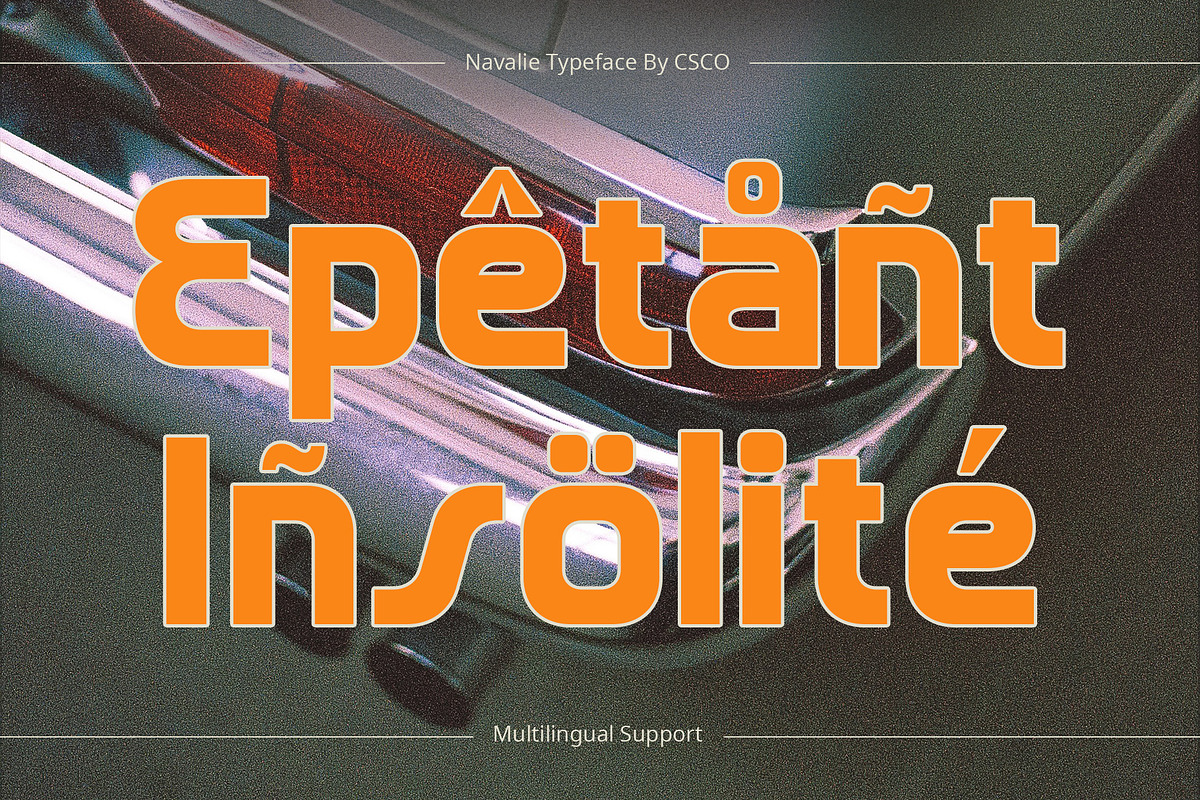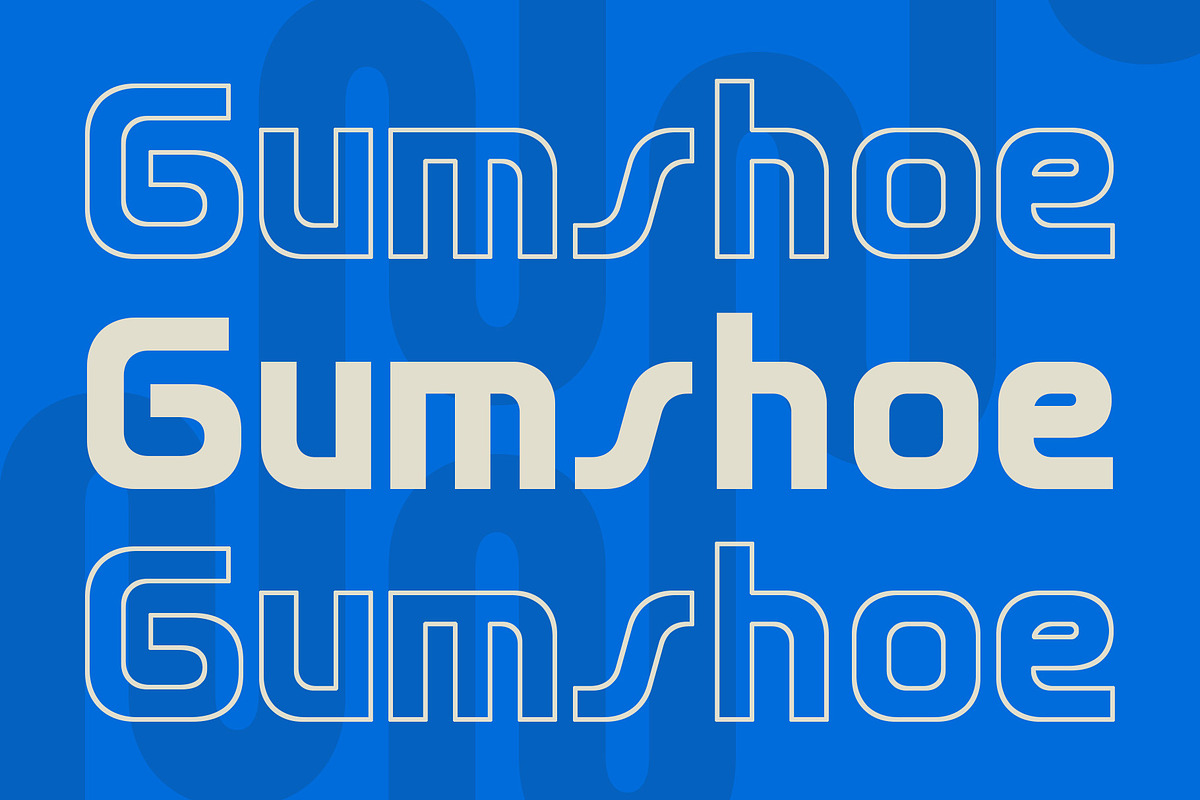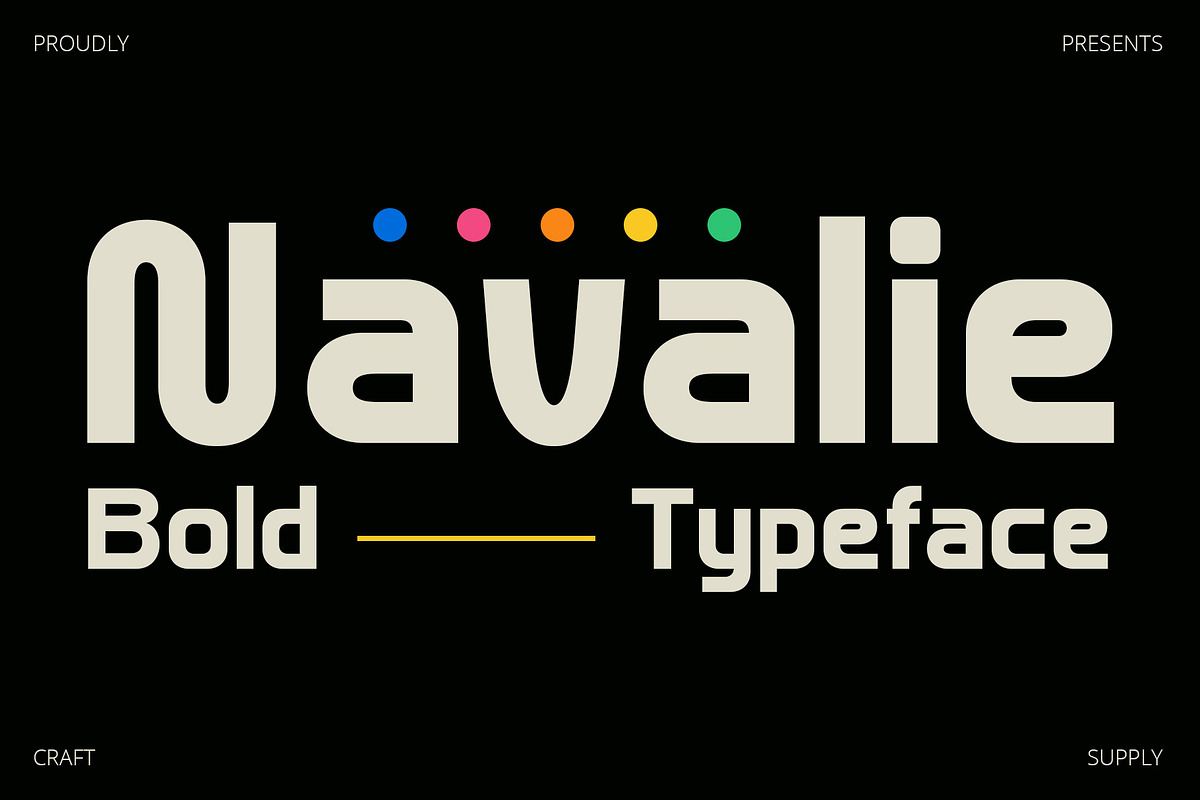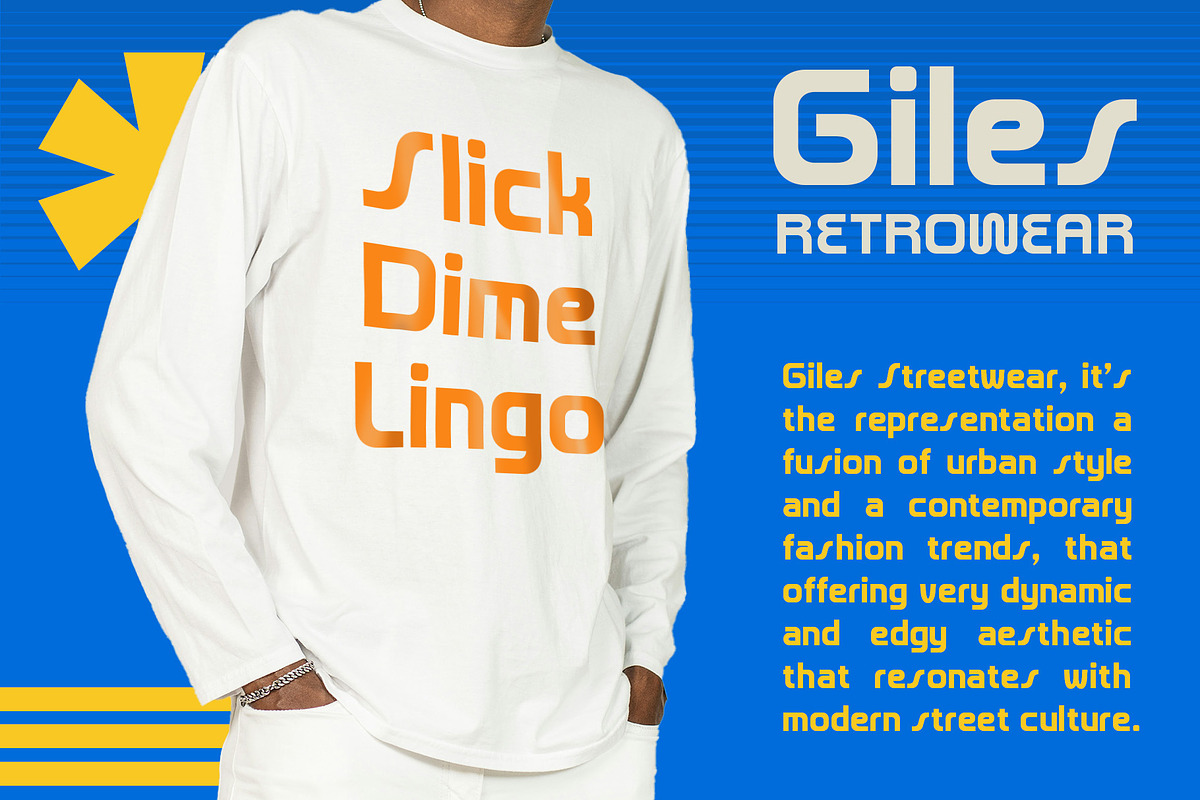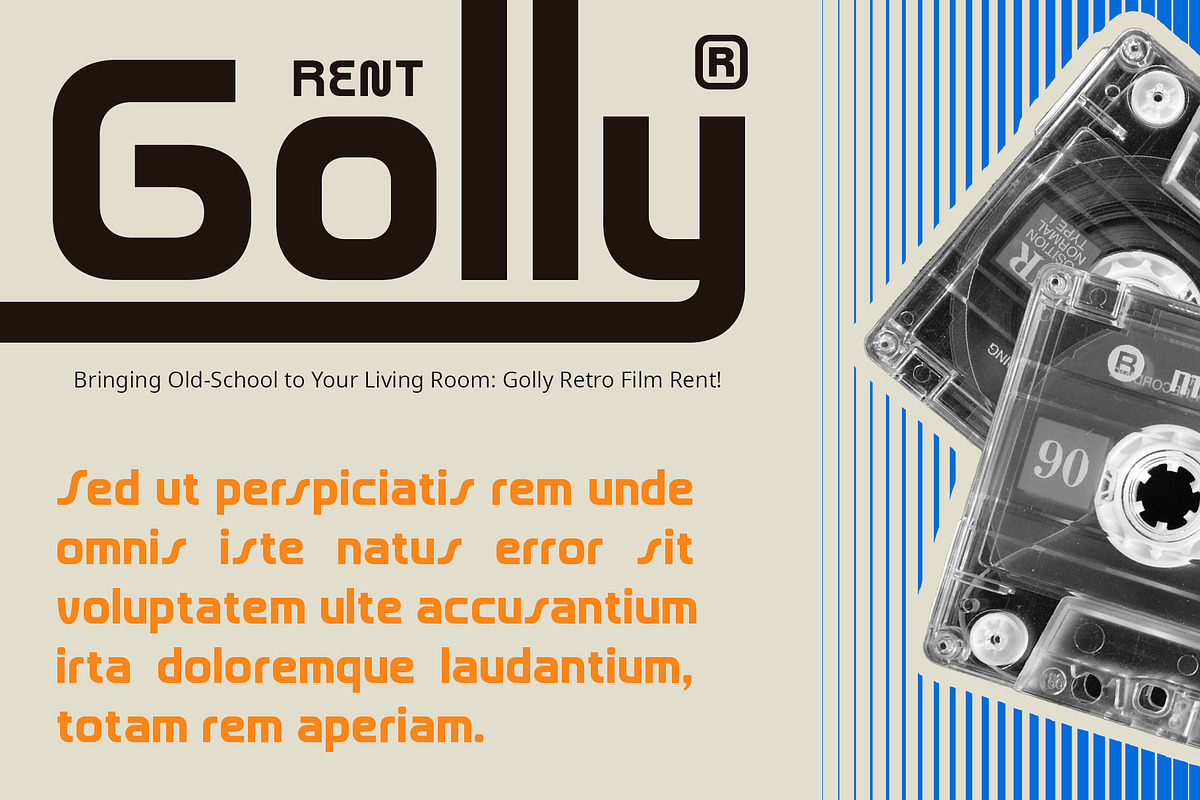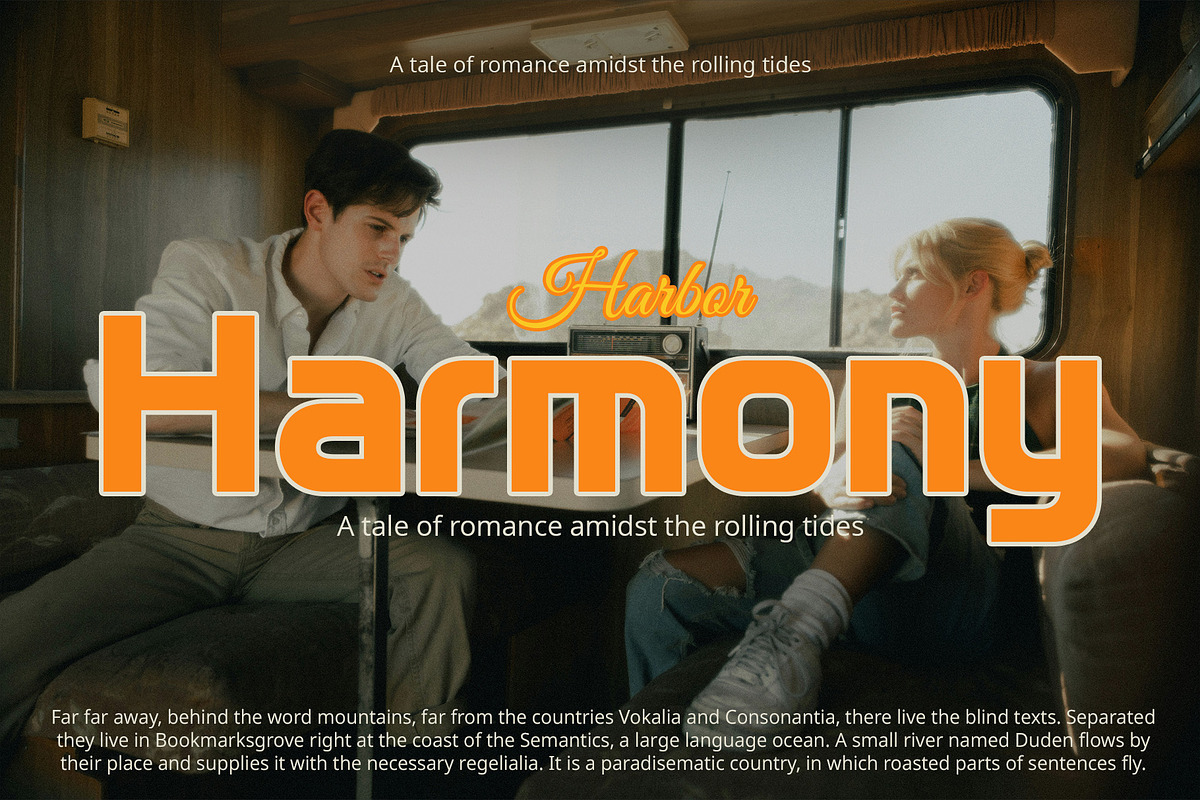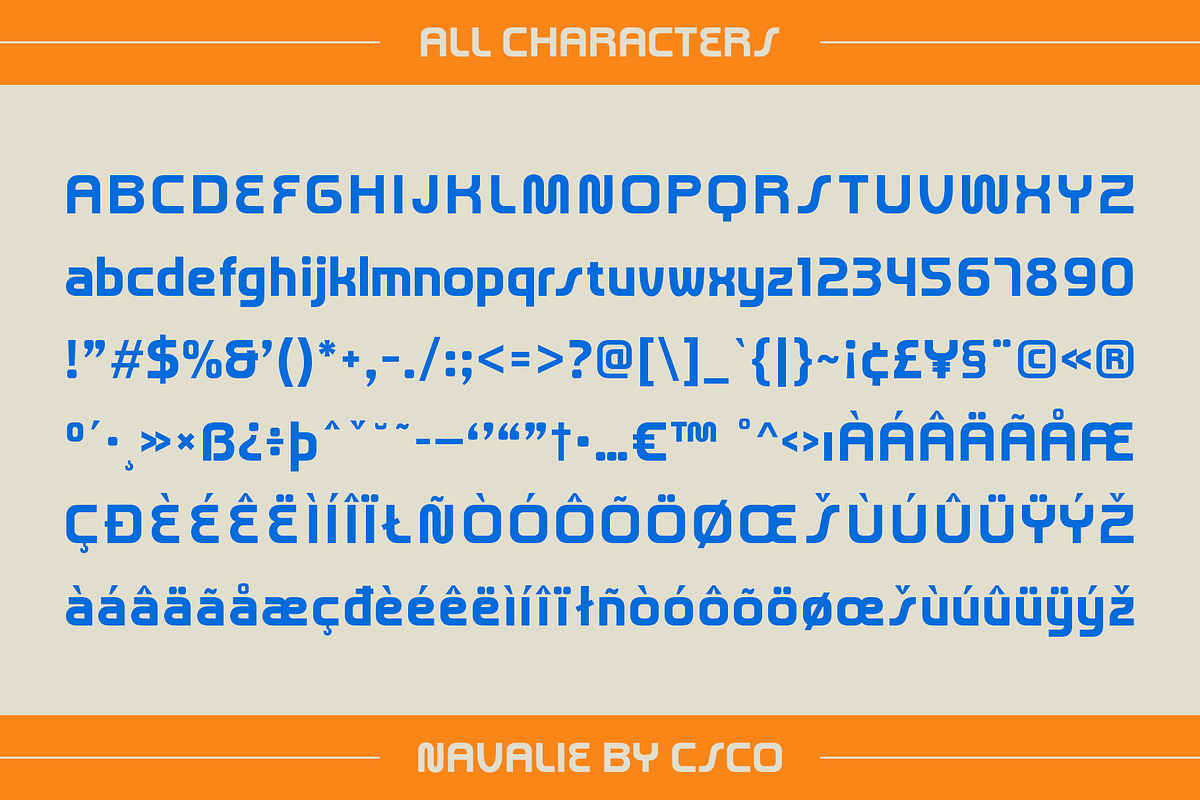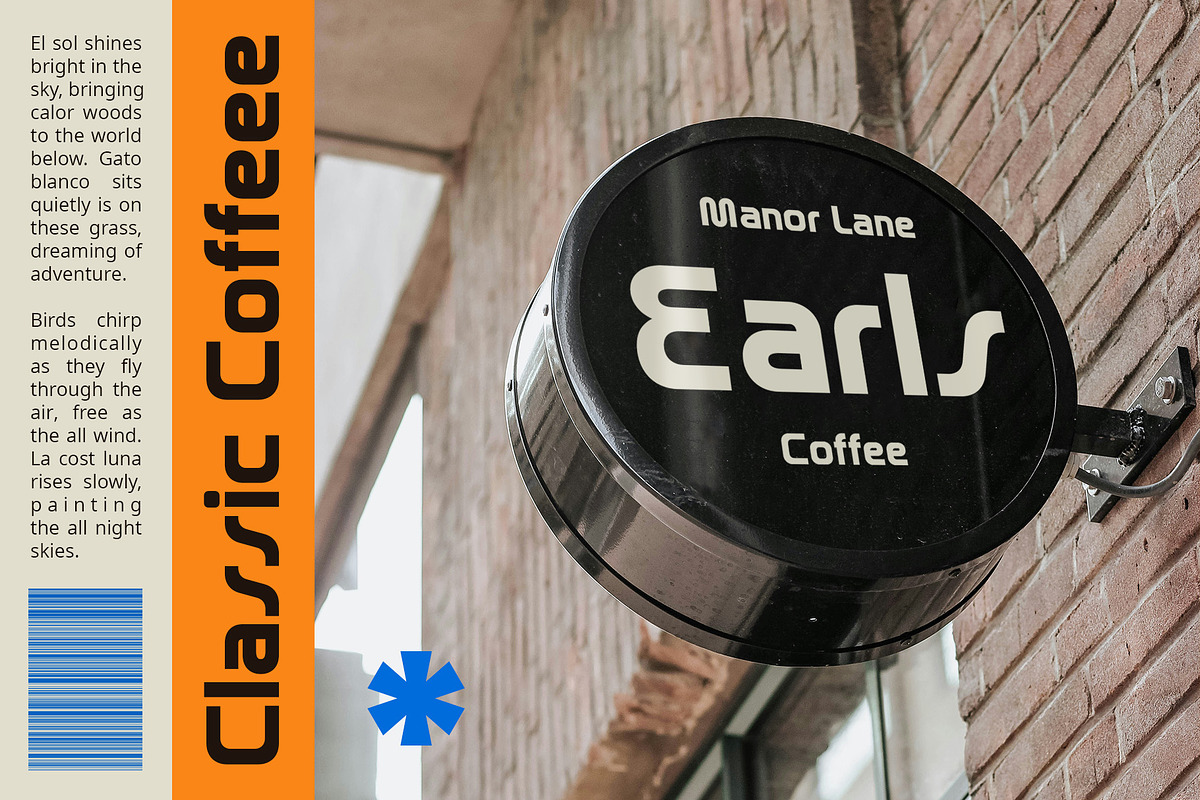
Navalie – Bold Sans Serif
Navalie – Bold Sans Serif: Retro Boldness Redefined
Unique Retro Bold Sans Serif
Navalie Font is a bold sans-serif display typeface that redefines retro boldness. Its unique design combines a sense of nostalgia with modern styling, making it perfect for projects that require a bold statement with a hint of vintage charm.
Distinctive Retro Vibe
With its distinctive retro vibe, Navalie Font stands out in any design. The bold, sans-serif letterforms exude confidence and style, making it ideal for headlines, posters, logos, and other projects where you want to make a bold impression.
Versatile and Attention-Grabbing
Despite its boldness, Navalie Font is surprisingly versatile. It works well in a variety of sizes and settings, from large headlines to smaller text blocks. Whether you’re creating a retro-inspired branding campaign or adding a touch of nostalgia to your designs, Navalie Font is sure to grab attention.
Perfect for Retro Revival
Whether you’re designing for a retro-themed event or simply want to add a nostalgic touch to your projects, Navalie Font is the perfect choice. Its bold, retro-inspired design adds a unique flair to any design, making it a versatile and eye-catching font for all your retro revival needs.